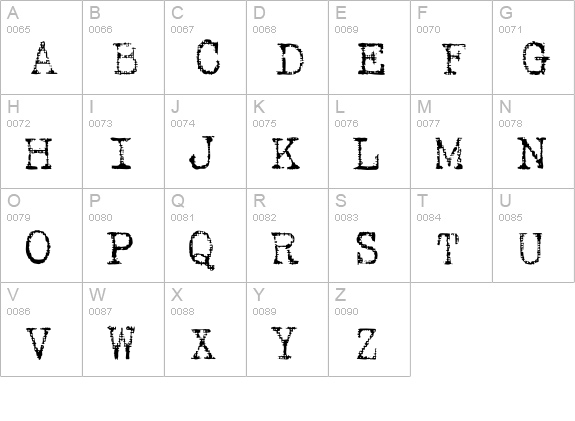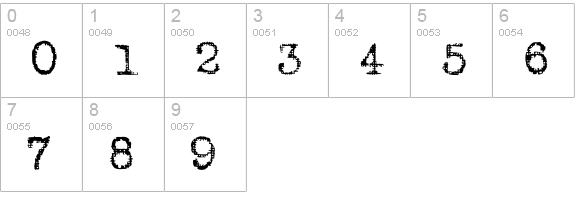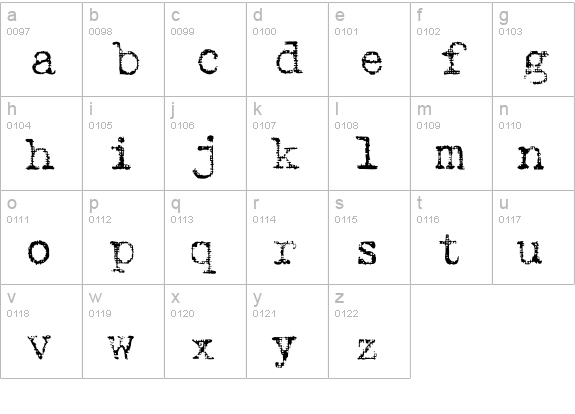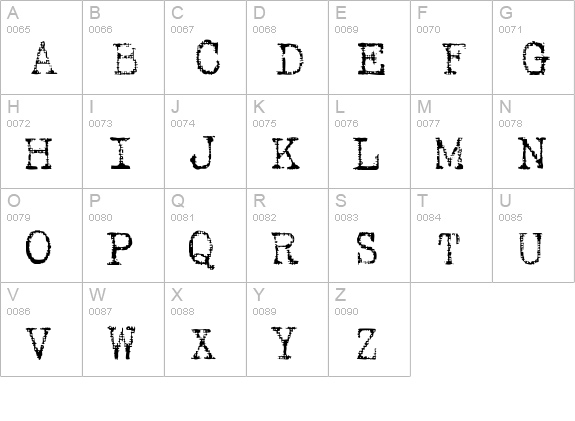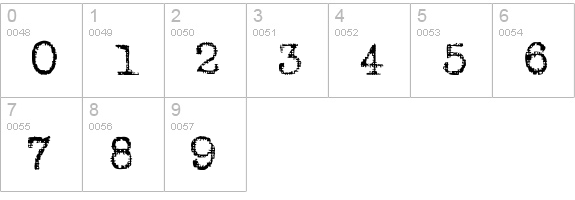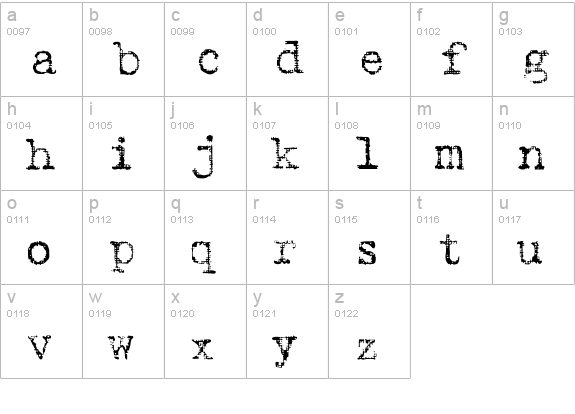
Typewriter2 Font Details
Introducing Typewriter2, a classic and timeless font that effortlessly captures the essence of vintage typewriters. This font is perfect for adding a touch of nostalgia and authenticity to your designs, whether you're working on a retro-inspired project or simply looking to evoke a sense of charm and character. With its meticulously crafted letterforms, Typewriter2 exudes a sense of craftsmanship and attention to detail. Each character is carefully designed to mimic the irregularities and imperfections found in traditional typewriter text, giving your work a distinctive and handcrafted feel. But what truly sets Typewriter2 apart is that it is freely available to download at FontsMarket.com. Yes, you read that right - this remarkable font can be yours at absolutely no cost. Whether you're a designer on a tight budget or simply appreciate the value of a free resource, Typewriter2 is here to fulfill your typographic needs without putting a dent in your wallet. Imagine the possibilities that this font opens up for you. Whether you're designing invitations, crafting eye-catching posters, or creating captivating branding elements, Typewriter2 is a versatile tool that will elevate your work to new heights. Its timeless appeal and versatility make it a perfect choice for a wide range of design projects. So why wait? Head over to FontsMarket.com and experience the joy of Typewriter2 for yourself. Download this remarkable font, and let its vintage charm and authenticity bring your designs to life. With Typewriter2, you can embrace the past while creating something truly remarkable and unique in the present.